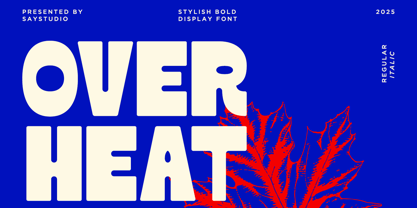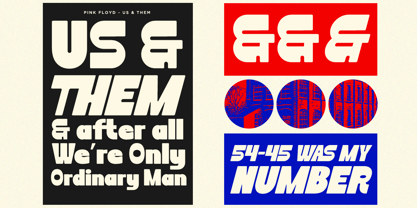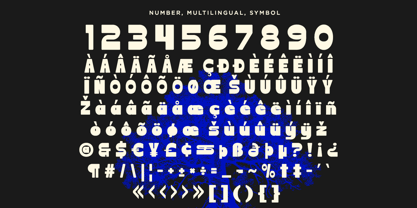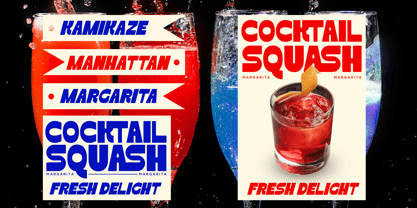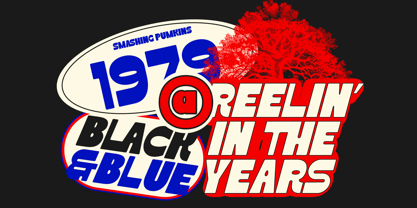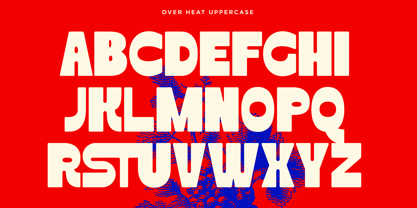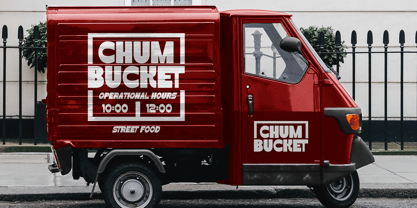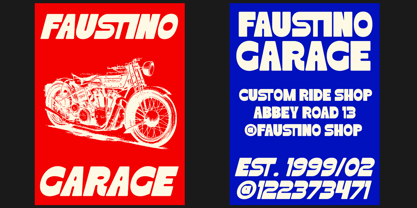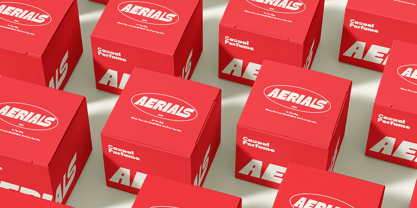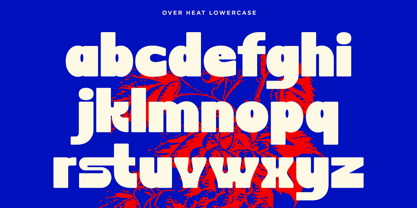
Over Heat
by Say Studio
Over Heat is a stylish bold display font for impact. It gives every layout a raw, structured presence with its modular structure, circular counterforms, and rigorous geometry. Clean, loud, and unquestionably modern, Over Heat gives your design the impact it deserves, whether it's printed on vinyl sleeves, shown on billboards, or bold design.
Perfect for modern branding, minimalist packaging, editorial layouts, and digital content. Make a bold statement with Over Heat essential tool for designers looking to create refined, impactful visuals with a contemporary minimalistic touch.
- Over Heat
- Over Heat Italic